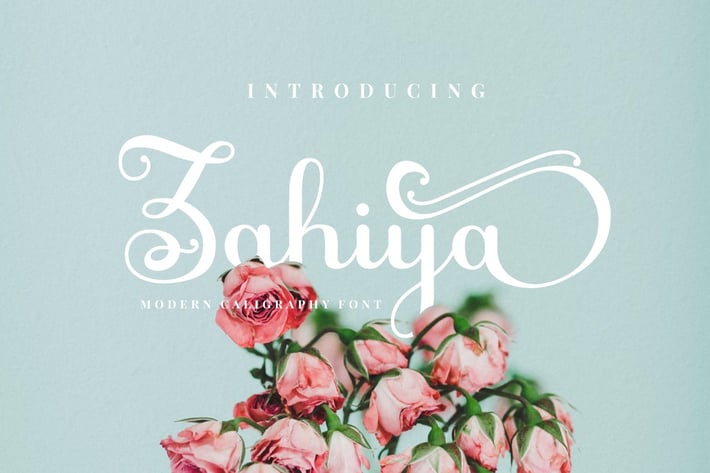
Zahiya - Modern Calligraphy Font
Zahiya
Introducing Zahiya, a modern calligraphy font with a unique flourish in the alternates character.
Zahiya is perfect for logotype creation, lettering compositions, wedding invitations, fashion projects, book design cover, magazines typography, cards, packagings, posters, branding and more.
Come with Opentype feature with a lot of alternates, its help you to make great lettering.This font is also support multi language.